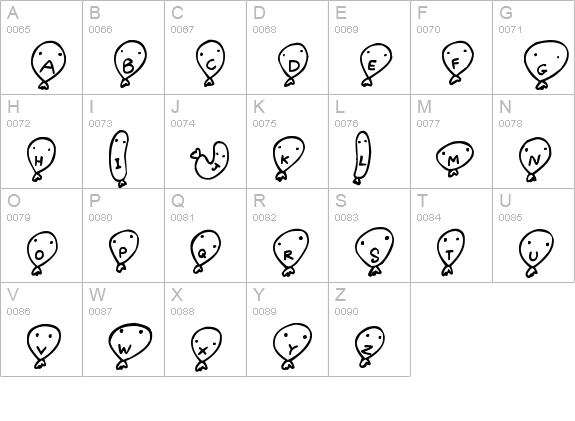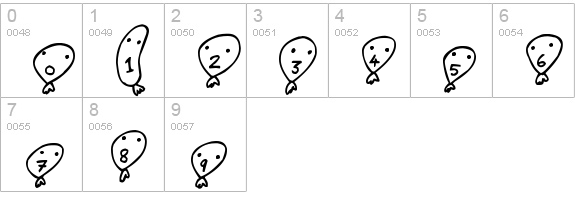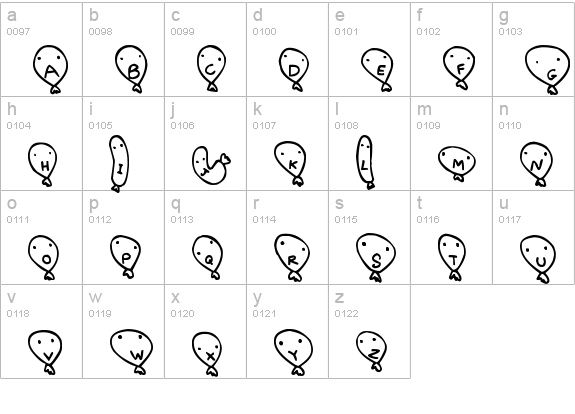
Balloon Friends is a free for personal use font in the Fancy > Decorative category, designed by Darrell Flood. It has been downloaded 81 times and is available for Windows, Mac and Linux.
Balloon Friends font is a whimsical and playful typeface that is perfect for adding a touch of fun to your designs. With its bubbly characters and friendly appearance, Balloon Friends is sure to bring a smile to anyone who sees it. This delightful font is free to download at FontsMarket.com, making it accessible to all designers looking to add a cheerful and lighthearted touch to their projects. Whether you're creating party invitations, greeting cards, or social media graphics, Balloon Friends is the perfect choice for adding a pop of personality to your designs. Download this charming font today and let your creativity soar!